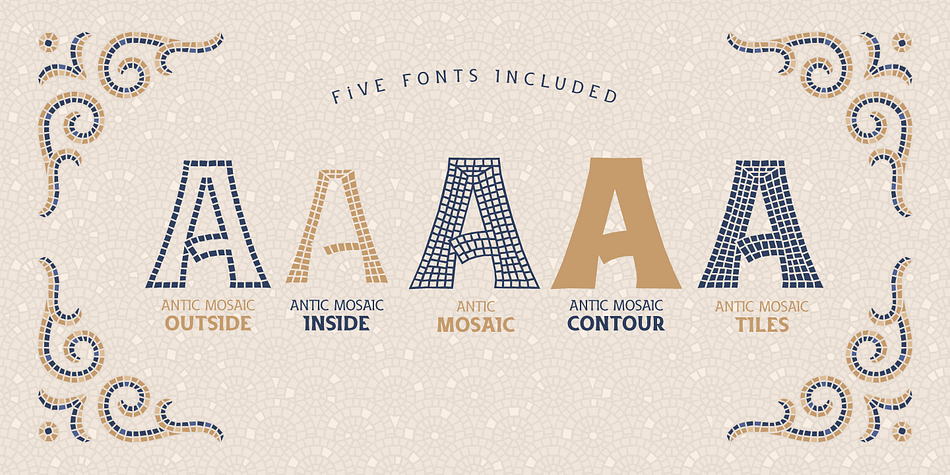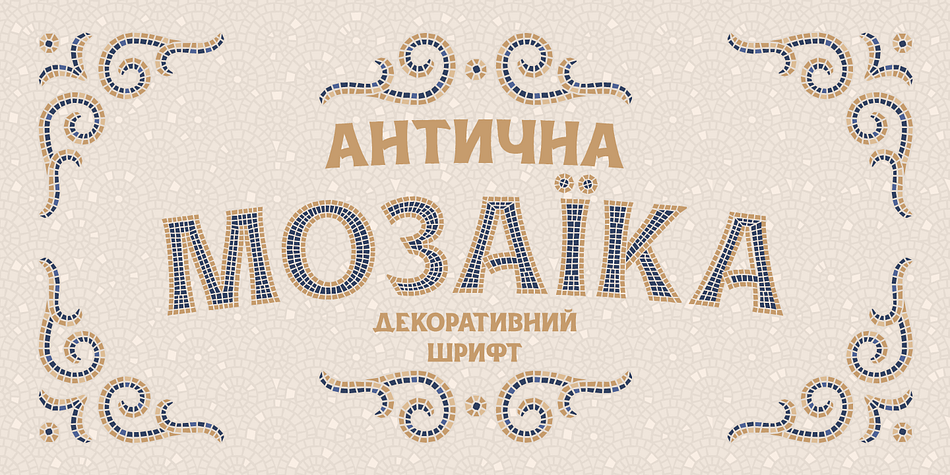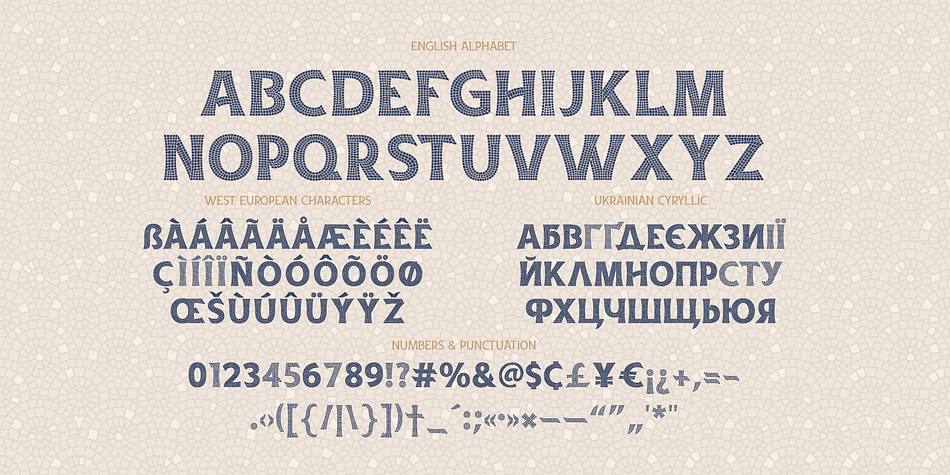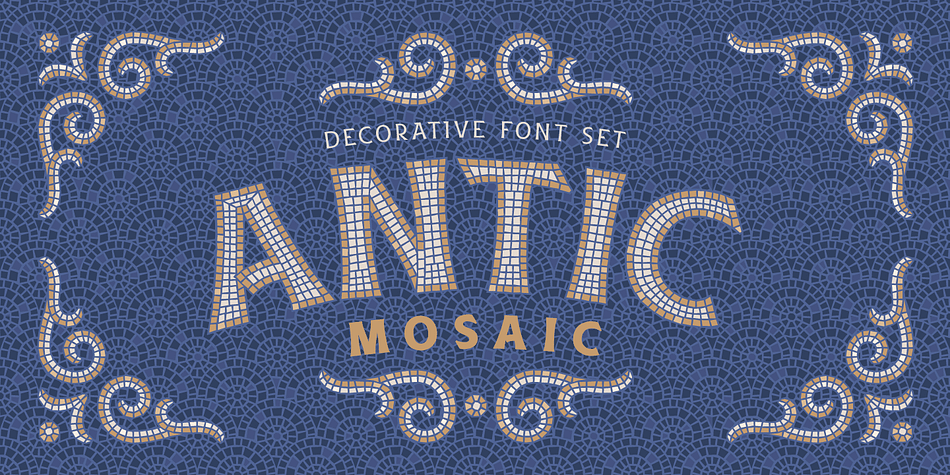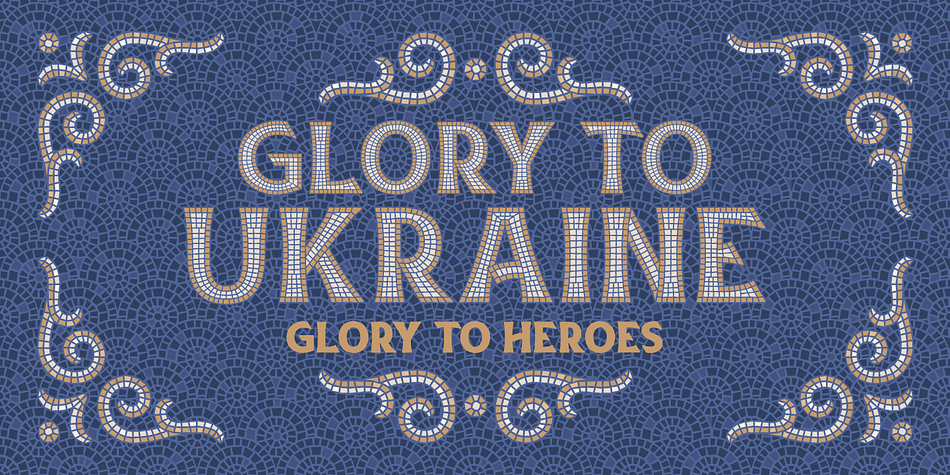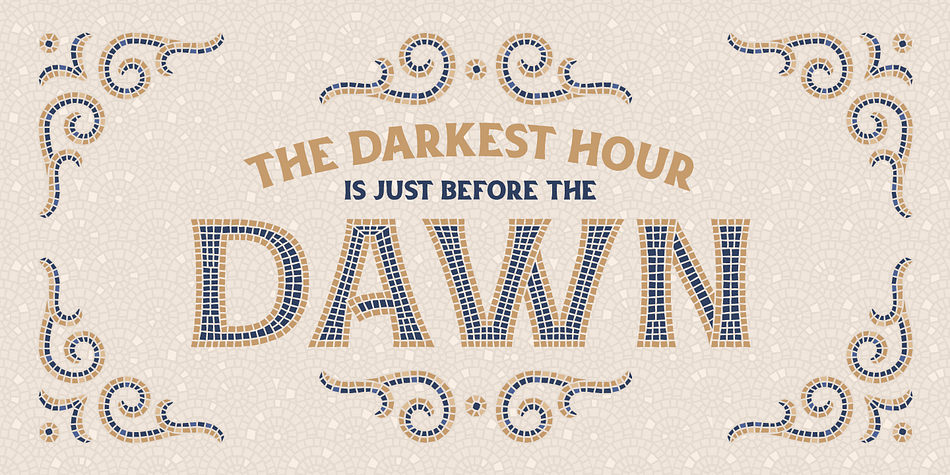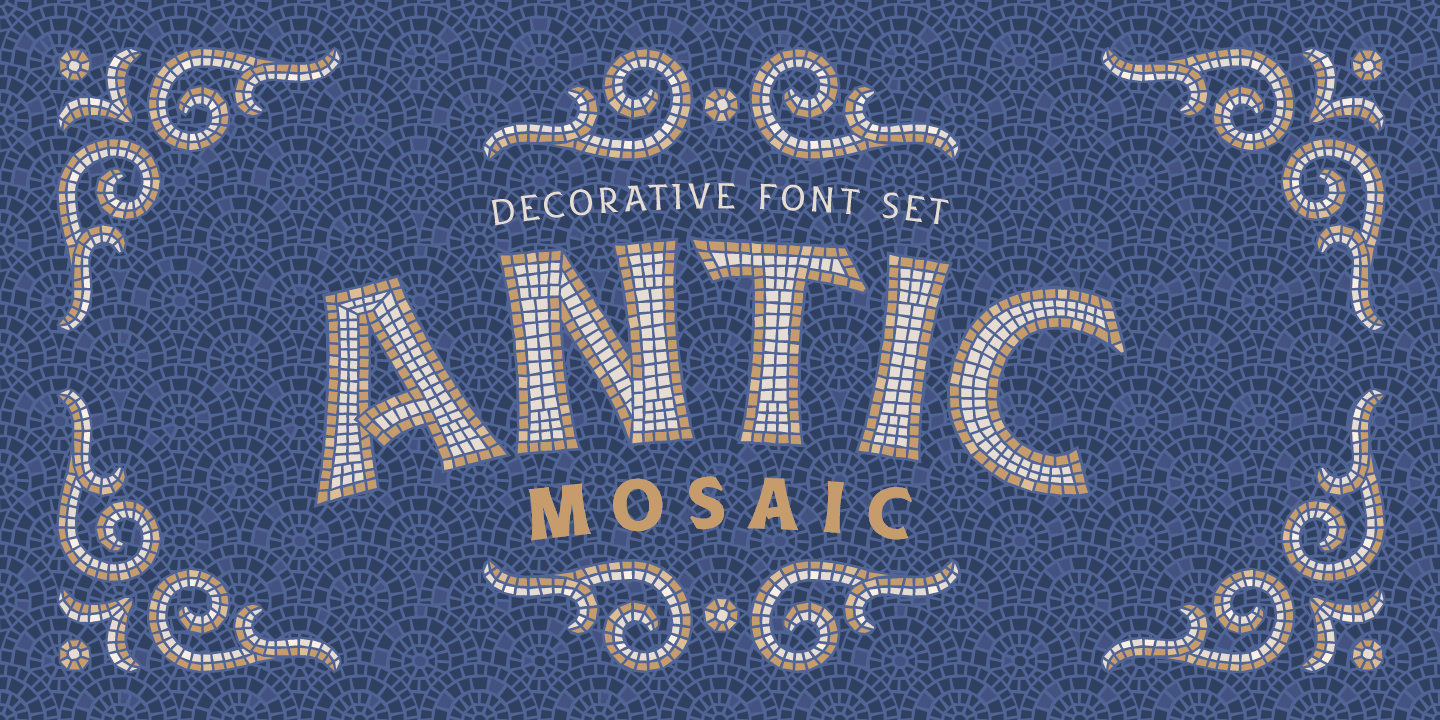
ANTIC MOSAIC
Designed by Gleb Guralnyk, Antic Mosaic is a display and display serif font family. This typeface has five styles and was published by Gleb Guralnyk.
Hello, Introducing a vintage font “Antic Mosaic”. It’s a decorative typeface made of hundreds of mosaic tiles. Five included font variations will help to create different color combinations. Antic Mosaic supports most of the west european languages and also includes ukrainian cyrillic characters (check out the screenshot with all available glyphs).